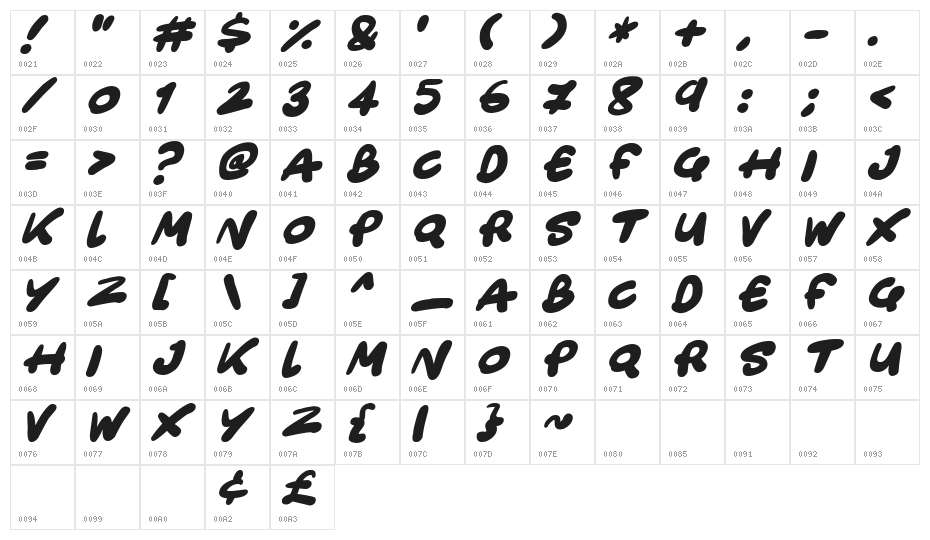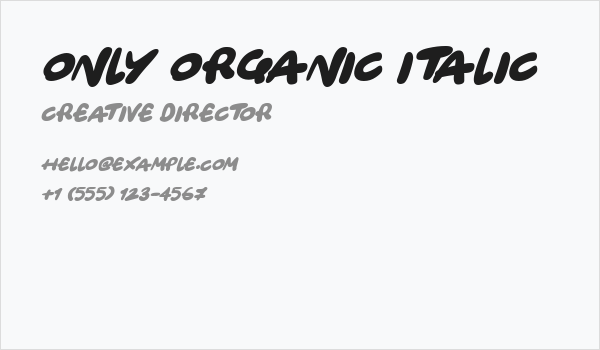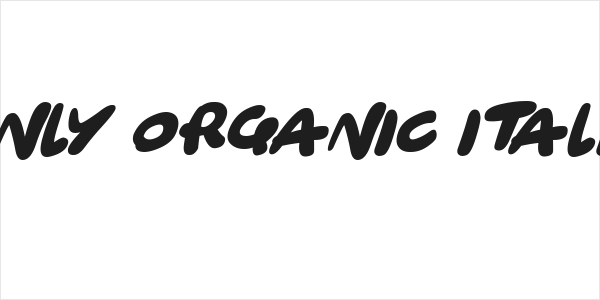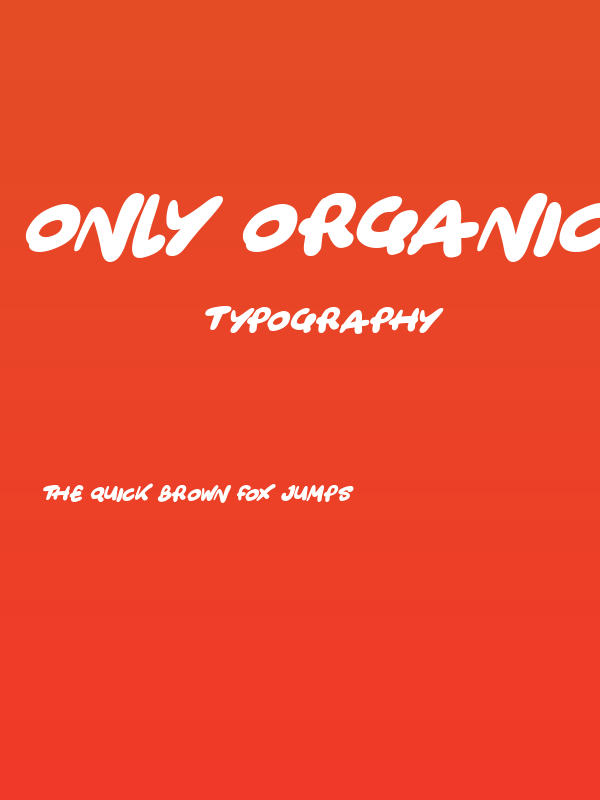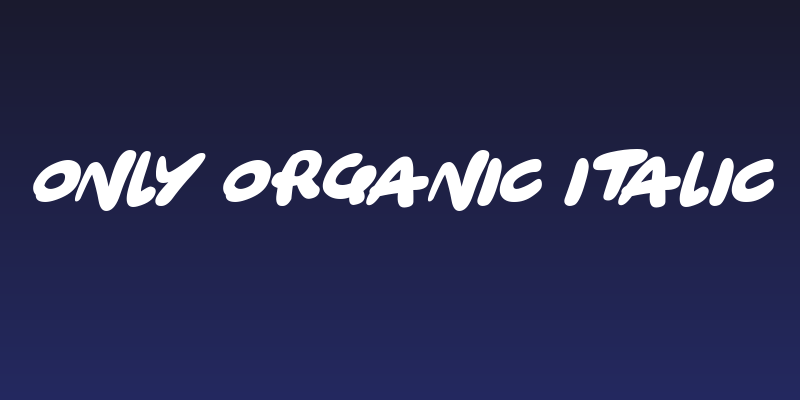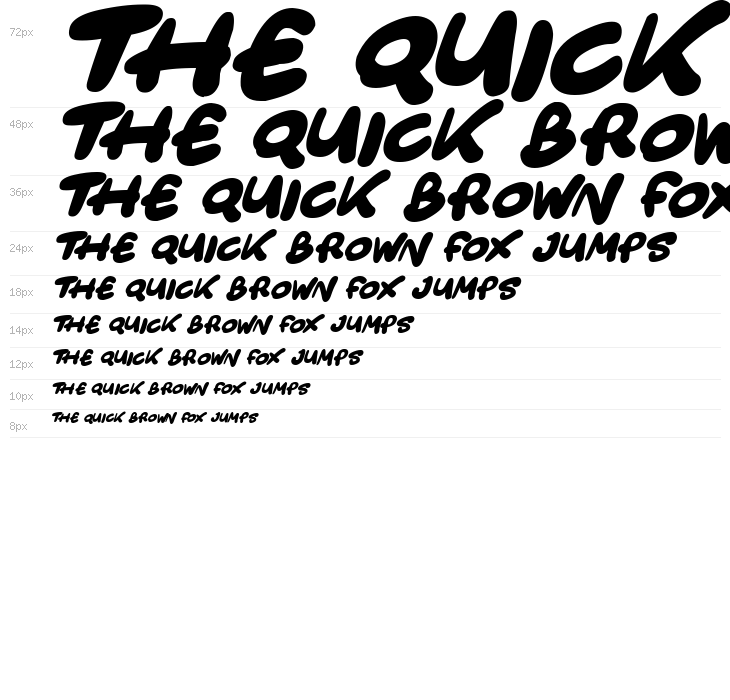
Only Organic Italic Font
Only Organic Italic Description
This font features a bold, italicized script style with a handwritten appearance. The letters have a smooth, flowing quality, characterized by rounded edges and a consistent stroke width. The uppercase and lowercase letters maintain a cohesive style, with the uppercase being slightly larger and more pronounced. Numbers and special characters follow the same design principles, ensuring uniformity across all glyphs. The overall look is dynamic and energetic, making it suitable for projects that require a personal touch or a sense of movement.
| Proposed Projects | Ideal for branding, packaging, greeting cards, and creative projects that require a personal, dynamic touch. |